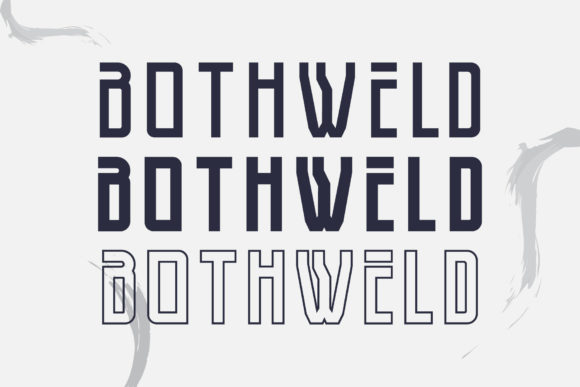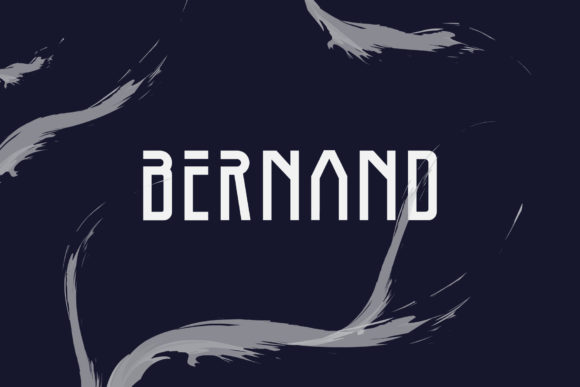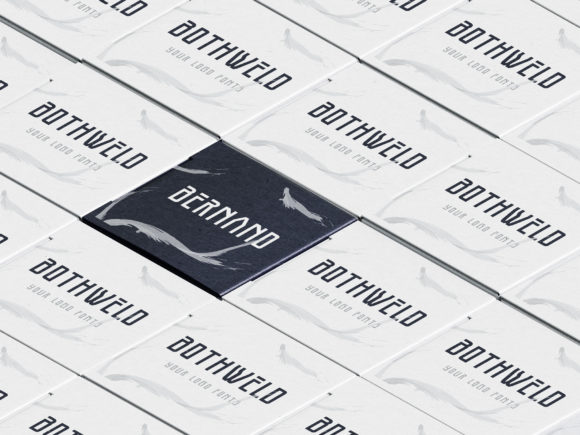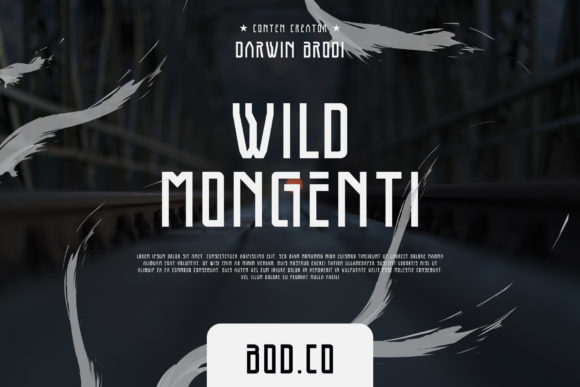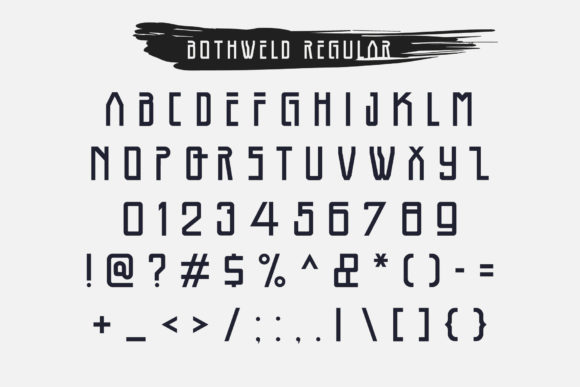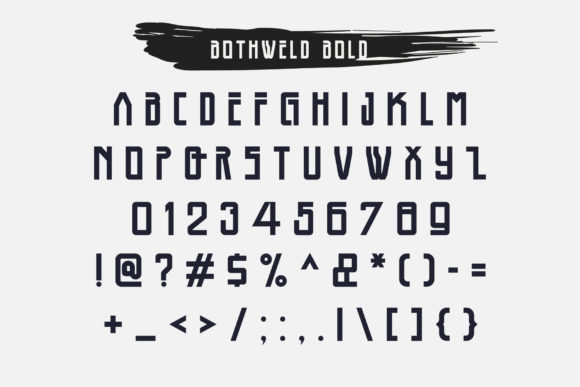
Unlocking Creative Potential with Bothweld Font
Have you ever found yourself stuck in a creative rut, searching for that perfect font to elevate your project to the next level? You’re not alone. As a designer, I know how frustrating it can be to settle for a font that just doesn’t quite fit the vibe you’re going for.
That’s where Bothweld Font comes in – a modern display font designed to make a statement. With its thick lettering and bold aesthetic, this font is perfect for adding a touch of sophistication to any project. Whether you’re working on a branding campaign, a graphic novel, or even a social media post, Bothweld Font is an incredible asset to your font library.
As a valuable addition to your design toolkit, Bothweld Font offers a level of versatility and creativity that’s hard to find in other fonts. Its modern design makes it perfect for a wide range of applications, from digital to print media.
Key Features of Bothweld Font
- Font Family: Bothweld Font is a unique sans-serif font designed for industrial and technical applications.
- Font Size: The font family includes a range of font sizes, from 8pt to 72pt, catering to various design requirements.
- Unique Characteristics: Bothweld Font features a distinctive blend of modern and industrial design elements, making it ideal for technical documentation, industrial design, and engineering applications.
Designer Review: Bothweld Font
Overall, I was quite impressed with the Bothweld font. It’s a unique and versatile design that can be used for a variety of applications, from logos to body text. Here are some of the things that stood out to me:
- ✨ The font has a strong, industrial feel that works well for technical or scientific applications.
- ✨ The bold and light weights provide a good range of options for designers to work with.
- ✨ The font is highly legible, even at small sizes, making it suitable for use in digital applications.
However, there are a few limitations that designers should be aware of:
- ⚠️ The font may not be suitable for use in situations where a more elegant or refined look is desired.
- ⚠️ The font’s industrial feel may not be the best choice for applications where a more modern or minimalist aesthetic is preferred.
- ⚠️ The font’s range of languages supported is somewhat limited, which may be a concern for designers working on international projects.
Overall, I think the Bothweld font is a solid choice for designers looking for a strong, industrial feel. While it may not be the best choice for every project, it’s definitely worth considering for applications where a bold, technical look is desired.
Here are some tips for getting the most out of Bothweld Font:
- Use Bothweld Font for headings and titles to add a touch of elegance.
- Pair Bothweld Font with other fonts for a unique and creative look.
Alternatives to Bothweld Font for Designers
Great Vibes Font is a modern, elegant script font suitable for creating visually appealing and professional designs. It is ideal for use in logos, branding, and titles where a touch of sophistication is required. Great Vibes Font is more refined and polished compared to Bothweld Font, making it suitable for a wider range of design applications.
Dancing Script Font is a flowing, cursive script font perfect for creating dynamic and attention-grabbing designs. It is suitable for use in posters, flyers, and other marketing materials where a bold and playful tone is desired. Dancing Script Font is more dramatic and expressive compared to Bothweld Font, making it ideal for designs that require a strong emotional impact.
Alex Brush Font is a elegant, handwritten font suitable for creating unique and personalized designs. It is ideal for use in wedding invitations, certificates, and other special occasion materials where a touch of warmth and personality is required. Alex Brush Font is more delicate and whimsical compared to Bothweld Font, making it suitable for designs that require a softer and more intimate tone.